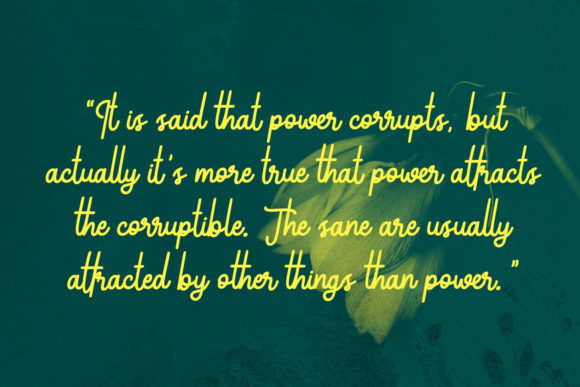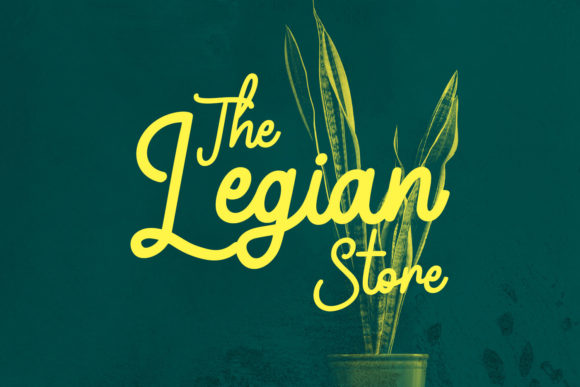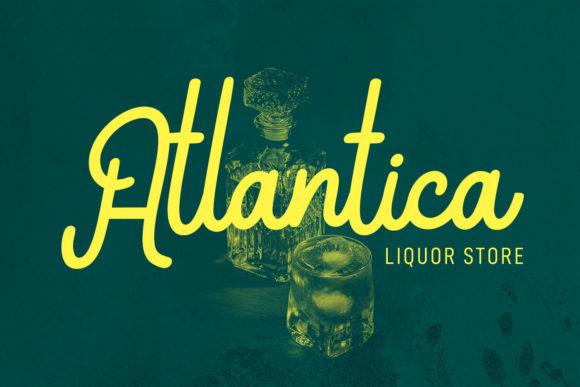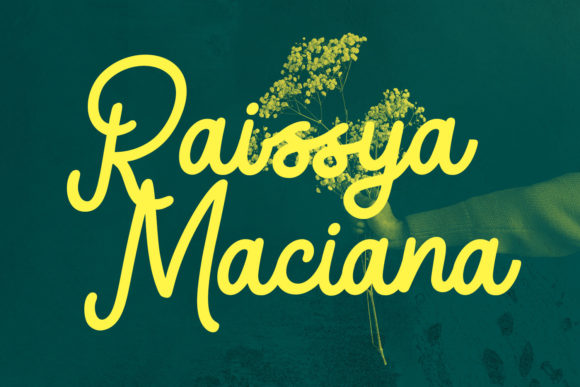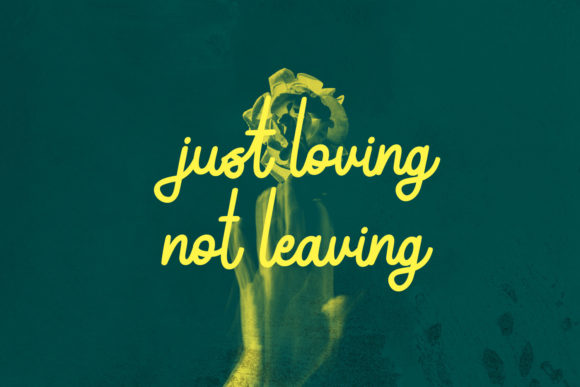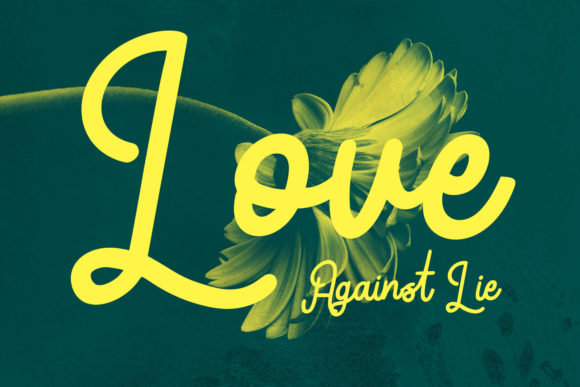
Ferageto Font: Elevate Your Designs with a Touch of Vintage Elegance
In the world of typography, fonts play a crucial role in conveying the tone and personality of a design. For designers and crafters looking to add a touch of sophistication and elegance to their projects, the Ferageto font is an excellent choice. This vintage-styled and flowing script font is perfect for those who want to bring a sense of luxury and refinement to their work.
The Unique Charm of Ferageto
Ferageto is a beautifully crafted font that seamlessly blends traditional calligraphic influences with modern sensibilities. Its flowing script style is reminiscent of classic calligraphy, yet it feels contemporary and fresh. This unique combination makes Ferageto an ideal choice for designers who want to create stunning and eye-catching designs that stand out from the crowd.
Key Features of Ferageto Font
- Vintage Flair: Ferageto’s vintage-inspired design adds a touch of nostalgia and sophistication to any project.
- Flowing Script Style: The font’s flowing script style creates a sense of movement and fluidity, making it perfect for designs that require a sense of elegance and refinement.
- Classy Calligraphic Influences: Ferageto’s calligraphic roots are evident in its beautiful letterforms, which are both classic and timeless.
- Contemporary Feel: Despite its vintage inspiration, Ferageto feels modern and fresh, making it suitable for a wide range of design applications.
Why Choose Ferageto Font?
So, why should designers and crafters choose Ferageto font for their projects? Here are just a few compelling reasons:
- Elevate Your Designs: Ferageto’s elegant and refined design makes it perfect for projects that require a touch of sophistication and luxury.
- Stand Out from the Crowd: With its unique blend of vintage and modern influences, Ferageto helps designers create stunning and eye-catching designs that stand out from the crowd.
- Versatile: Ferageto is a versatile font that can be used for a wide range of design applications, from branding and packaging to wedding invitations and more.
How to Use Ferageto Font in Your Designs
Using Ferageto font in your designs is easy. Here are a few tips to get you started:
- Pair it with Other Fonts: Ferageto pairs beautifully with other fonts, especially sans-serif fonts like Arial or Helvetica.
- Experiment with Colors: Try pairing Ferageto with different colors to create a unique and eye-catching design.
- Use it for Headings and Titles: Ferageto’s elegant design makes it perfect for headings and titles, adding a touch of sophistication and refinement to your designs.
In conclusion, Ferageto font is a beautiful and elegant script font that is perfect for designers and crafters looking to add a touch of sophistication and luxury to their projects. With its unique blend of vintage and modern influences, Ferageto is sure to elevate your designs and help you create stunning and eye-catching work. So why not fall in love with Ferageto and bring your projects to the highest levels?
Whether you’re a seasoned designer or a crafty DIY enthusiast, Ferageto font is an excellent choice for anyone looking to create beautiful and elegant designs. So go ahead, give Ferageto a try, and experience the power of elegant typography for yourself.